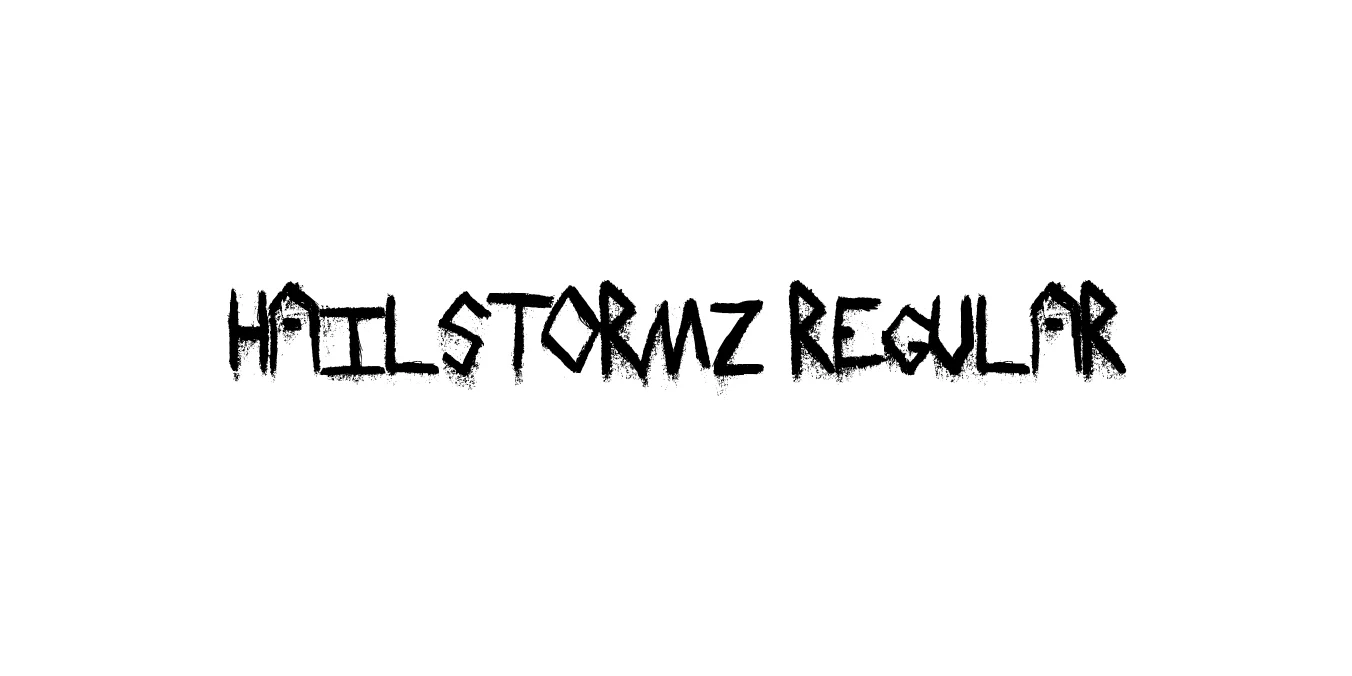
HailStormz Regular
Designed by Fikry Alif
HailStormz Regular is a high-energy brush script font designed to convey movement and raw intensity. Developed with a focus on urban aesthetics, it features bold, hand-drawn strokes that mimic the look of a wide-tipped marker or a wet paintbrush. This typeface excels in modern branding projects where a touch of grit and spontaneity is required to stand out from traditional, clean typography.
The font's character set includes a variety of swashes and ligatures, allowing designers to create unique typographic layouts that feel personalized and handcrafted. Over time, HailStormz has become a favorite among streetwear brands and graphic designers for its versatility in both digital and print media. It balances legibility with an aggressive, artistic flair, making it an essential tool for contemporary visual storytelling and high-impact messaging.
HailStormz Regular Best Uses
Perfect for t-shirt graphics and streetwear branding.
Dynamic headings for posters and social media promotions.
Creating high-impact, edgy brand identities.
Ideal for music festivals or extreme sports event advertisements.